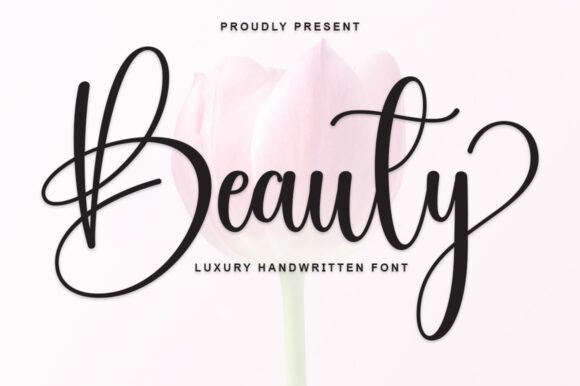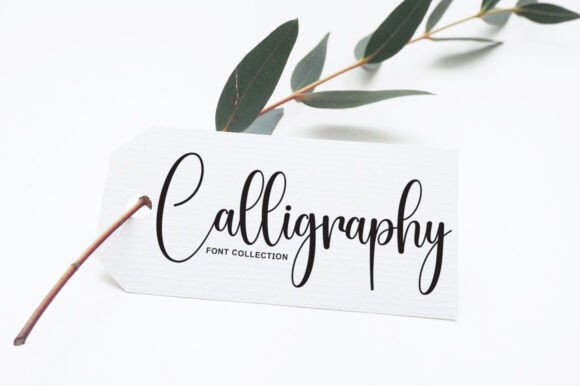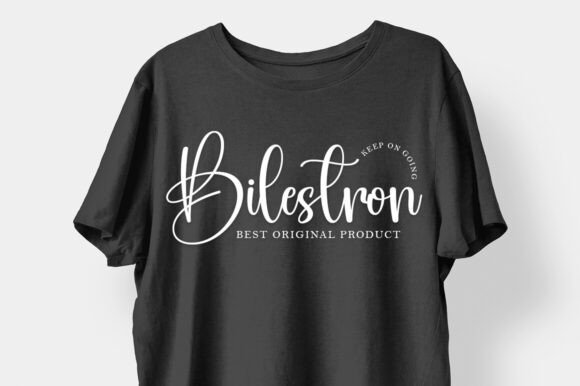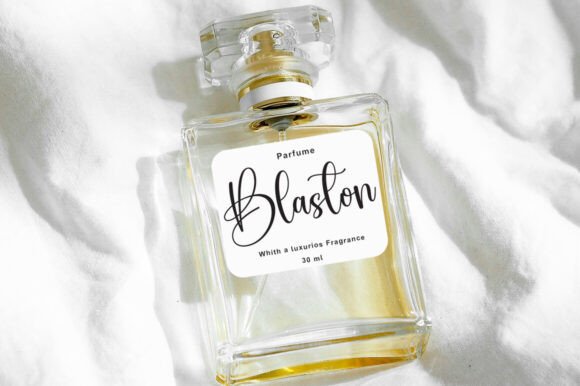
About the Beauty Font
Add a touch of class to your work with the Beauty Font, a truly exceptional typeface. Beauty is a beautiful handwritten font with a natural, flowing style. It looks like elegant cursive writing, perfect for adding a personal and stylish touch to invitations, logos, and social media posts.
Beauty Font Usage Examples
Beauty Font Example